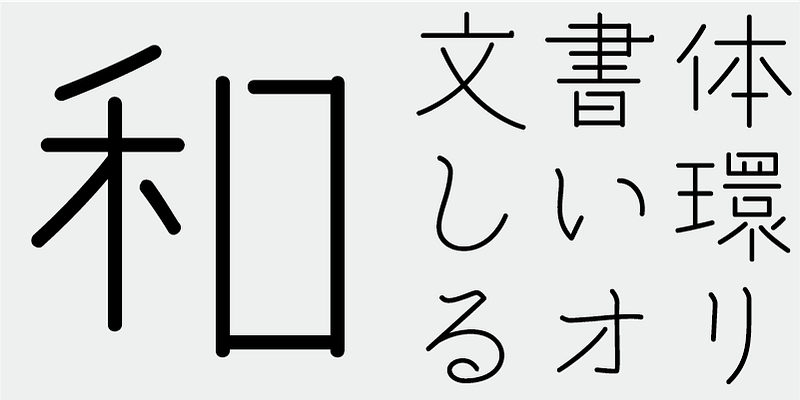
AB Kotodama L Font Free Download is a graceful and poetic Japanese-style typeface inspired by the concept of “kotodama”—the spiritual power believed to reside in words. The "L" in its name indicates a light weight, making this font soft, airy, and ideal for subtle, emotionally resonant design. It’s perfect for poetry collections, book covers, wellness branding, minimalist packaging, and culturally inspired visuals that require elegance with a touch of mysticism.
With gentle curves and carefully spaced strokes, AB Kotodama L evokes a serene, thoughtful atmosphere. The font flows like a quiet whisper, adding depth and intention to each word. It’s particularly well-suited for projects that blend storytelling, introspection, and refined aesthetics.